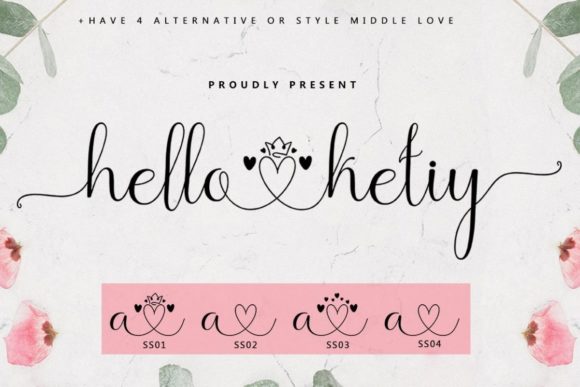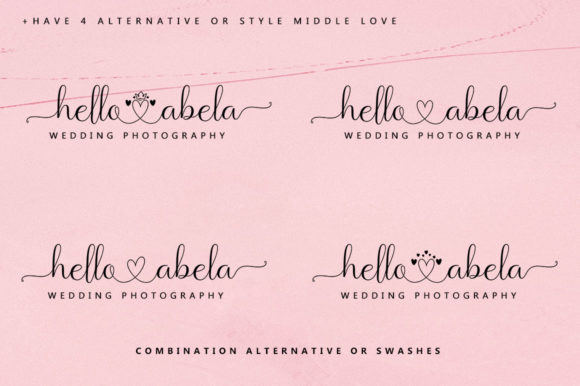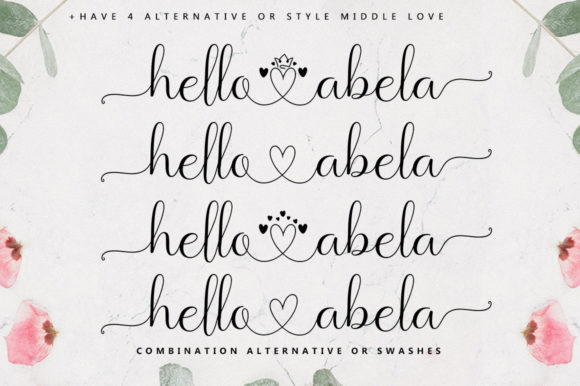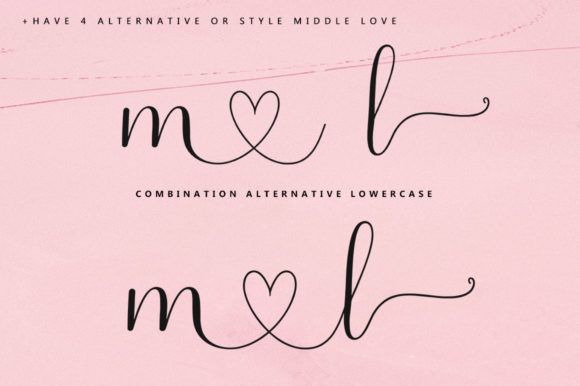
Hello Ketiy Font
About the Hello Ketiy Font
The Hello Ketiy Font offers a perfect balance of form and function for your design needs. Hello Ketiy is a sweet, all round and flexible handwritten font. Warm, romantic and jolly, this font will turn each of your project ideas into real works of art. Have fun with this beautiful font and explore its endless variations.
Hello Ketiy’s friendly, informal style makes it ideal for projects requiring a warm and approachable feel. It excels in headlines, short text blocks on social media, branding elements like logos (especially for smaller businesses), invitations, and packaging for products targeting a younger or female demographic. Avoid using it for large bodies of text or UI elements where readability is paramount; its handwritten nature can hinder legibility in extended passages.
Pairing Hello Ketiy with a clean sans-serif like Montserrat for body copy creates a balanced and modern aesthetic. For a more playful feel, consider pairing it with a geometric sans-serif such as Futura. If a touch of elegance is desired, a delicate serif font like Playfair Display can complement its charm.
Its overall personality is best described as cheerful and approachable, conveying a sense of handmade authenticity and warmth. This makes it unsuitable for projects requiring a formal, corporate, or highly professional tone.